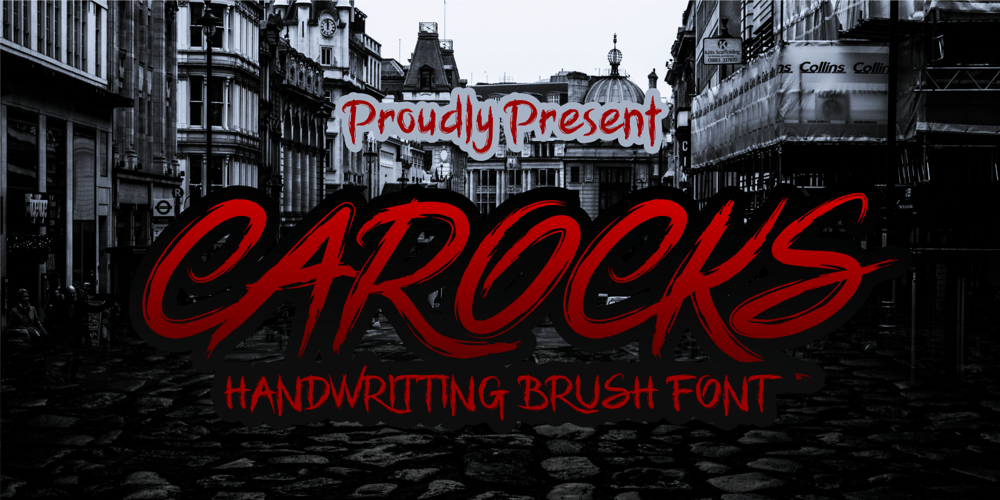
Carocks Font Family was designed by Ahmad Zulfikar Ali and published by ZetDesign. Carocks contains 2 styles and family package options. Carocks is a handwritten brush font inspired by violence, chaos, cruelty, fear, horror, resistance and more. This font gives a strong impression on each of your works and is made in a regular and italic style and is equipped with an opentype feature to help designers produce amazing works.